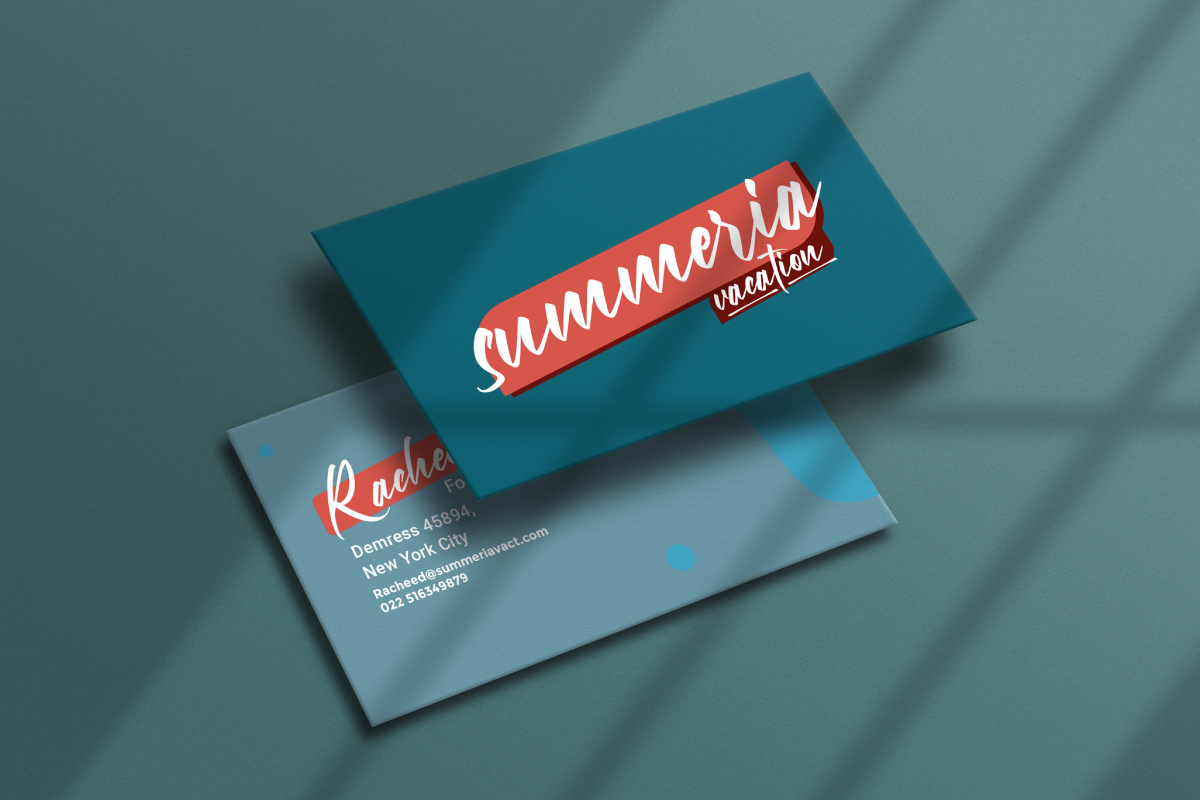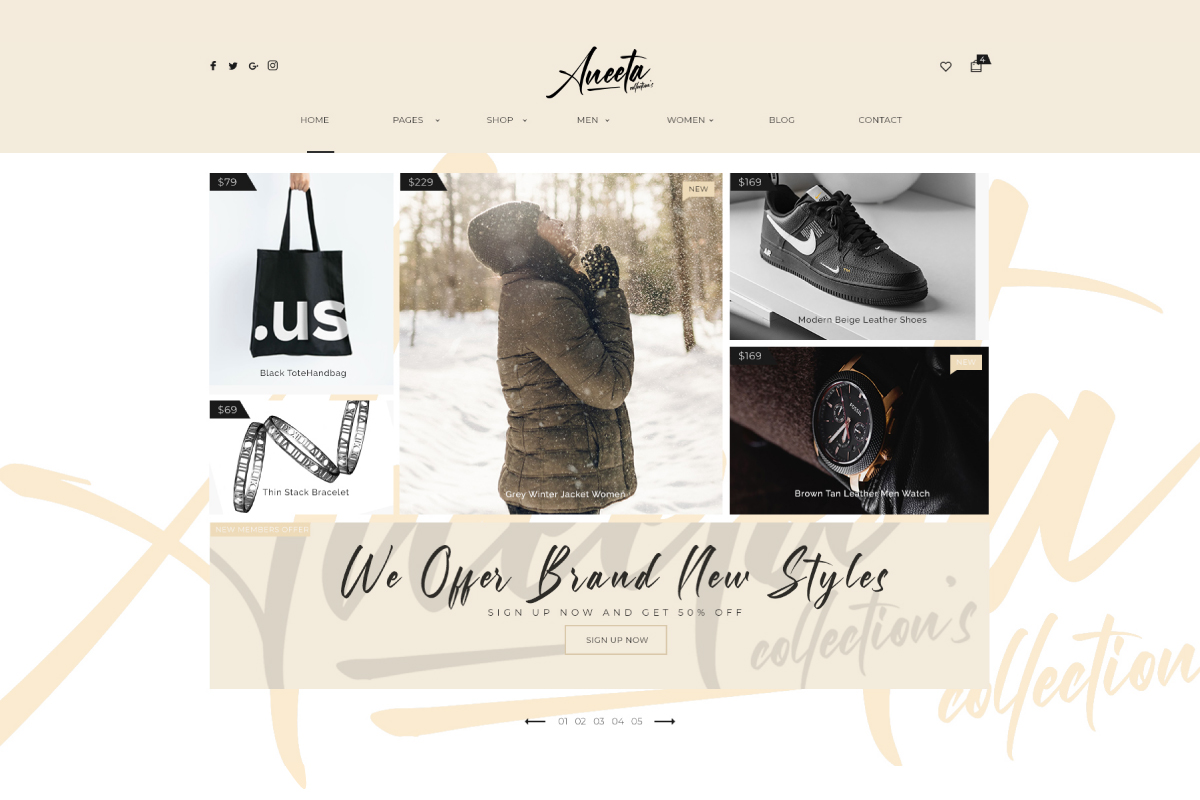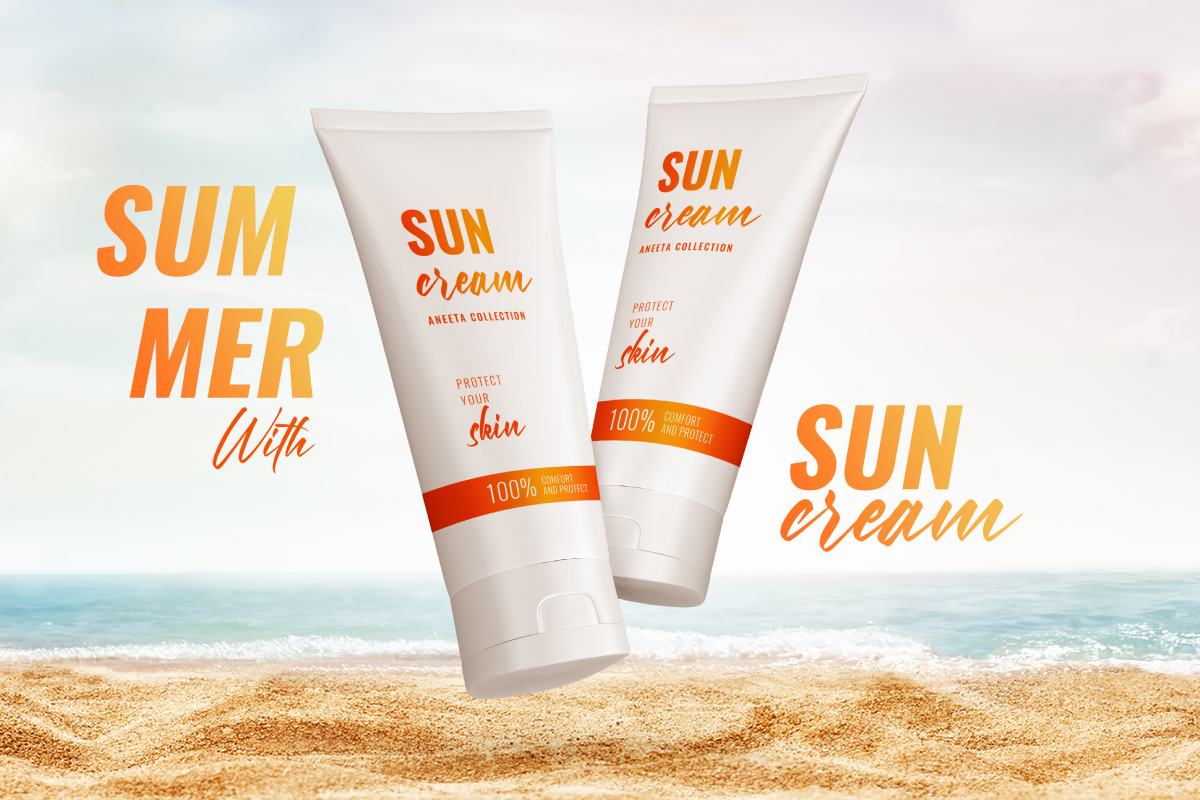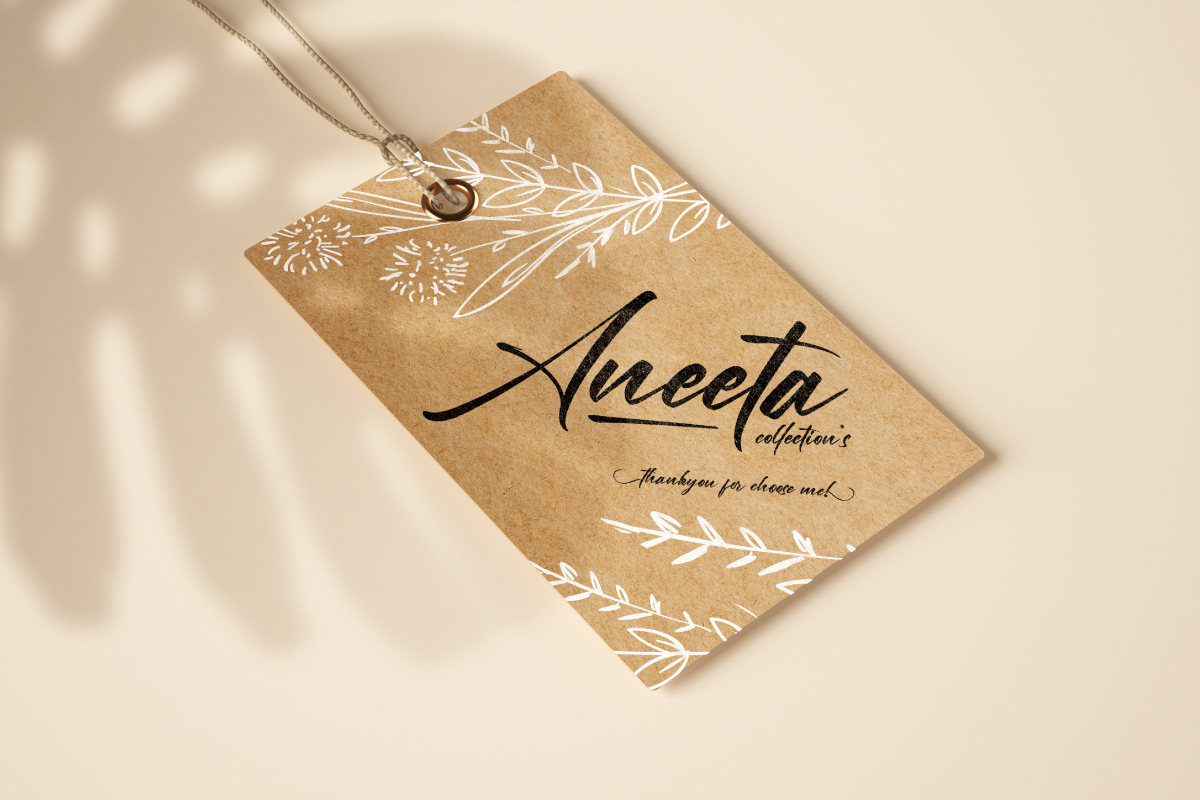
Allston Font
Allston Script Font
This is a stunning font with modern script characters. This font is crafted carefully in every its single scratch, created to look as close to a natural sketched so that it can create the perfect combination on each glyph. When we make this font, we really want to create a touch that is so flawless that it gives a natural impression on its use later. For example, if you want letter ‘s’ that has a flow sketch with letter ‘t’, you can find it in ‘st’ ligature glyph (just type in the text form below for trying). This awesome script is for anyone who are needing of elegance and stylish for their designs.
Allston Font includes full set of Uppercase and Lowercase Basic Characters, Numerals and Punctuation. Also it contains ligatures and alternates characters to perfectly make natural calligraphy look that add more beautiful and aesthetic fonts to perfect your extraordinary project. Allston Font will be awesome for wedding, engagement, branding, invitations, florist, hair stylish, makeup artist, event organizer, movie, music, festival, promotions, social media etc